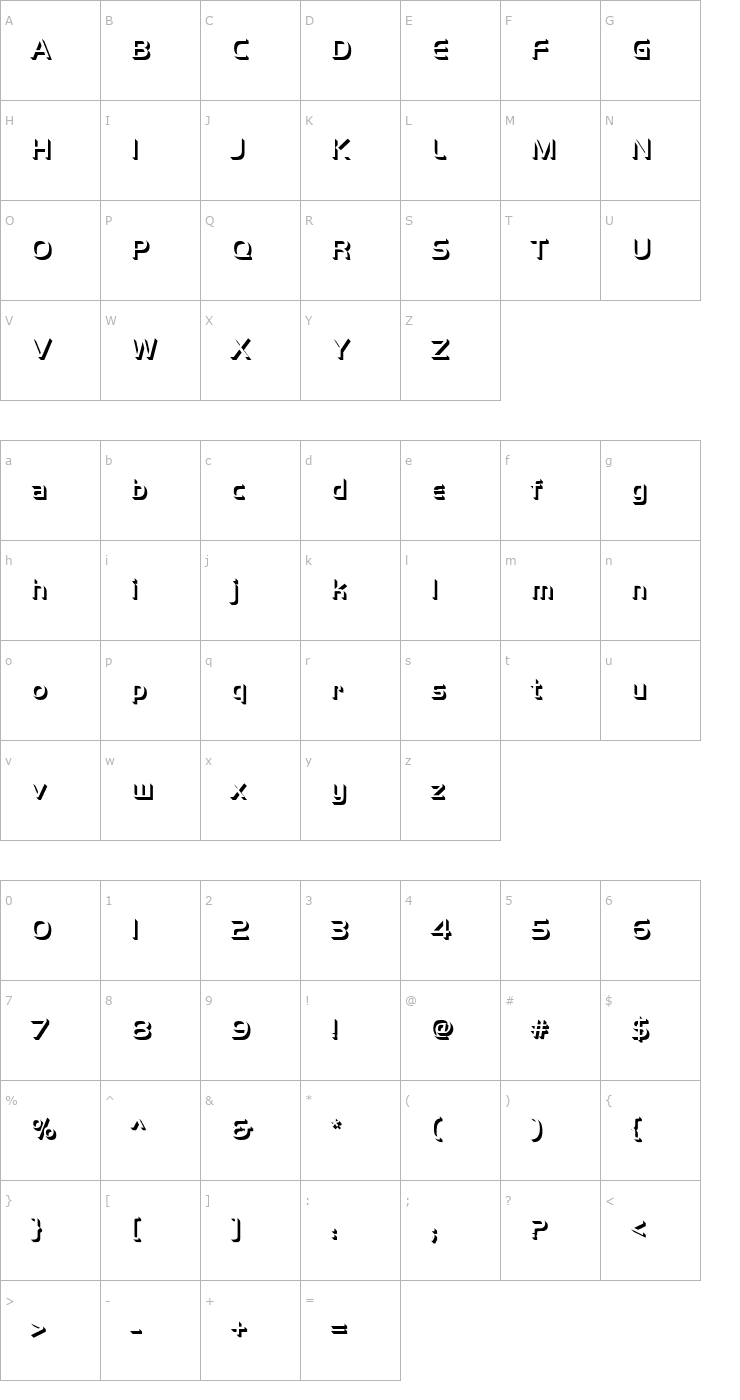
Handel Gothic Font Online . Download handel gothic for free, view sample text, rating and more on fontsgeek.com. Handel gothic is the perfect font for all your fun designs. Handel gothic's slightly idiosyncratic character shapes gave the face a futuristic look 40 years ago that retains its power today. Designed by donald handel with robert trogman for fotostar/facsimile fonts. The font subfamily is regular. Download handel gothic italic for free, view sample text, rating and more on fontsgeek.com Shown by berthold with facsimile fonts credits in two weights, light and regular.
Shown by berthold with facsimile fonts credits in two weights, light and regular. Download handel gothic for free, view sample text, rating and more on fontsgeek.com. The font subfamily is regular. Handel gothic is the perfect font for all your fun designs. Handel gothic's slightly idiosyncratic character shapes gave the face a futuristic look 40 years ago that retains its power today. Download handel gothic italic for free, view sample text, rating and more on fontsgeek.com Designed by donald handel with robert trogman for fotostar/facsimile fonts.
Handel Gothic Font Online Shown by berthold with facsimile fonts credits in two weights, light and regular. Download handel gothic for free, view sample text, rating and more on fontsgeek.com. Shown by berthold with facsimile fonts credits in two weights, light and regular. Designed by donald handel with robert trogman for fotostar/facsimile fonts. Handel gothic is the perfect font for all your fun designs. The font subfamily is regular. Handel gothic's slightly idiosyncratic character shapes gave the face a futuristic look 40 years ago that retains its power today. Download handel gothic italic for free, view sample text, rating and more on fontsgeek.com
Handel Gothic Font Free Download Handel Gothic Font Online The font subfamily is regular. Handel gothic is the perfect font for all your fun designs. Shown by berthold with facsimile fonts credits in two weights, light and regular. Designed by donald handel with robert trogman for fotostar/facsimile fonts. Handel gothic's slightly idiosyncratic character shapes gave the face a futuristic look 40 years ago that retains its power today. Download. Handel Gothic Font Online.
Handel Gothic ITC W01 Bold 1.01 Fonts Free Download Handel Gothic Font Online Download handel gothic for free, view sample text, rating and more on fontsgeek.com. The font subfamily is regular. Shown by berthold with facsimile fonts credits in two weights, light and regular. Handel gothic is the perfect font for all your fun designs. Download handel gothic italic for free, view sample text, rating and more on fontsgeek.com Handel gothic's slightly idiosyncratic. Handel Gothic Font Online.
Handel Gothic Font Free Download Handel Gothic Font Online Download handel gothic italic for free, view sample text, rating and more on fontsgeek.com Designed by donald handel with robert trogman for fotostar/facsimile fonts. Shown by berthold with facsimile fonts credits in two weights, light and regular. The font subfamily is regular. Handel gothic's slightly idiosyncratic character shapes gave the face a futuristic look 40 years ago that retains its. Handel Gothic Font Online.
Handel Gothic D Medium Font FontYukle Handel Gothic Font Online Designed by donald handel with robert trogman for fotostar/facsimile fonts. Handel gothic's slightly idiosyncratic character shapes gave the face a futuristic look 40 years ago that retains its power today. Handel gothic is the perfect font for all your fun designs. The font subfamily is regular. Shown by berthold with facsimile fonts credits in two weights, light and regular. Download. Handel Gothic Font Online.
Handel Gothic D Bold Download for free at Free Fonts Handel Gothic Font Online Handel gothic's slightly idiosyncratic character shapes gave the face a futuristic look 40 years ago that retains its power today. The font subfamily is regular. Download handel gothic italic for free, view sample text, rating and more on fontsgeek.com Shown by berthold with facsimile fonts credits in two weights, light and regular. Handel gothic is the perfect font for all. Handel Gothic Font Online.
Handel Gothic Font Free Download Handel Gothic Font Online The font subfamily is regular. Designed by donald handel with robert trogman for fotostar/facsimile fonts. Download handel gothic for free, view sample text, rating and more on fontsgeek.com. Shown by berthold with facsimile fonts credits in two weights, light and regular. Handel gothic is the perfect font for all your fun designs. Handel gothic's slightly idiosyncratic character shapes gave the. Handel Gothic Font Online.
Handel Gothic Font Online The font subfamily is regular. Handel gothic's slightly idiosyncratic character shapes gave the face a futuristic look 40 years ago that retains its power today. Download handel gothic italic for free, view sample text, rating and more on fontsgeek.com Handel gothic is the perfect font for all your fun designs. Download handel gothic for free, view sample text, rating and. Handel Gothic Font Online.
Handel Gothic Only Shadow D Light Font Free Fonts Handel Gothic Font Online The font subfamily is regular. Download handel gothic italic for free, view sample text, rating and more on fontsgeek.com Handel gothic is the perfect font for all your fun designs. Handel gothic's slightly idiosyncratic character shapes gave the face a futuristic look 40 years ago that retains its power today. Download handel gothic for free, view sample text, rating and. Handel Gothic Font Online.